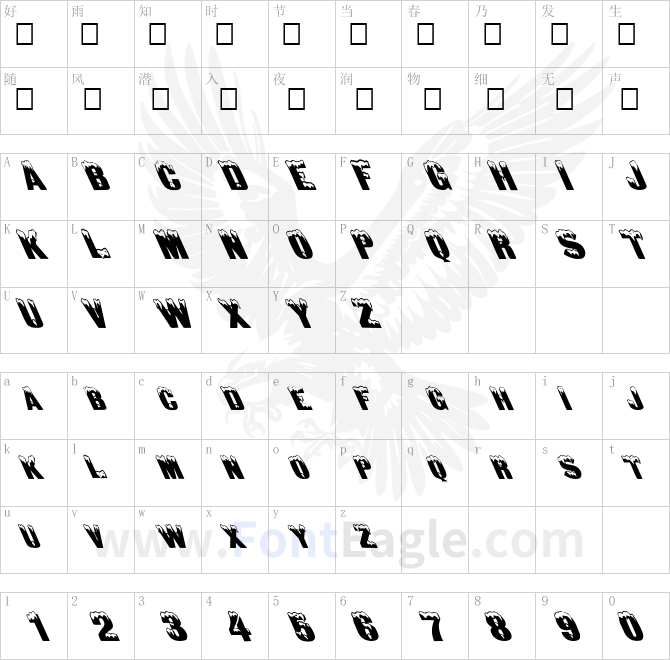
FZ-UNIQUE-6-LEFTY is a great font, widely used in graphic design, single-page menu design, poster design and other fields, and is deeply loved by designers.FZ-UNIQUE-6-LEFTY download.